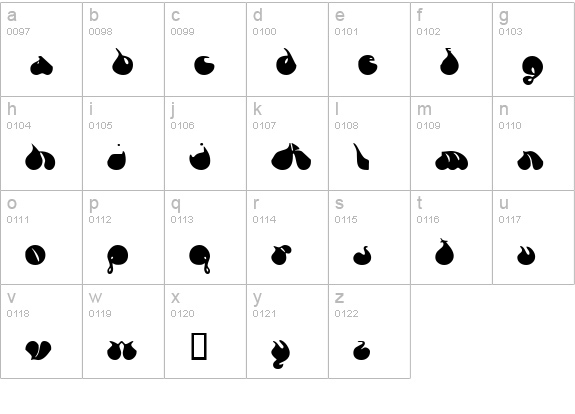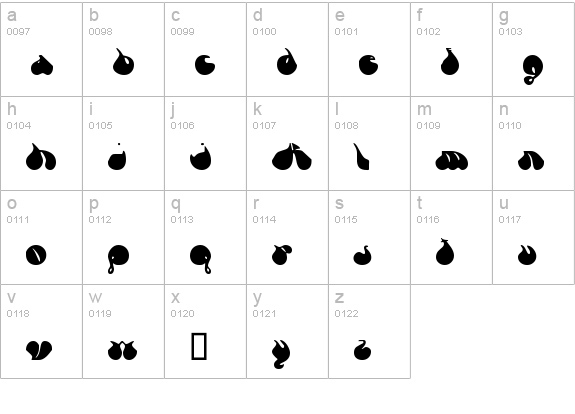
FSO revenge of zany Font Details
"FSO Revenge of Zany Font is a whimsical and playful typeface that adds a touch of fun to any design project. With its quirky characters and unique charm, this font is perfect for capturing attention and making a statement. Whether you're creating posters, invitations, or branding materials, FSO Revenge of Zany Font will surely stand out from the crowd. Best of all, this font is available for free download at FontsMarket.com. Take advantage of this opportunity to add a touch of zaniness to your designs without breaking the bank. Download FSO Revenge of Zany Font today and let your creativity run wild!"